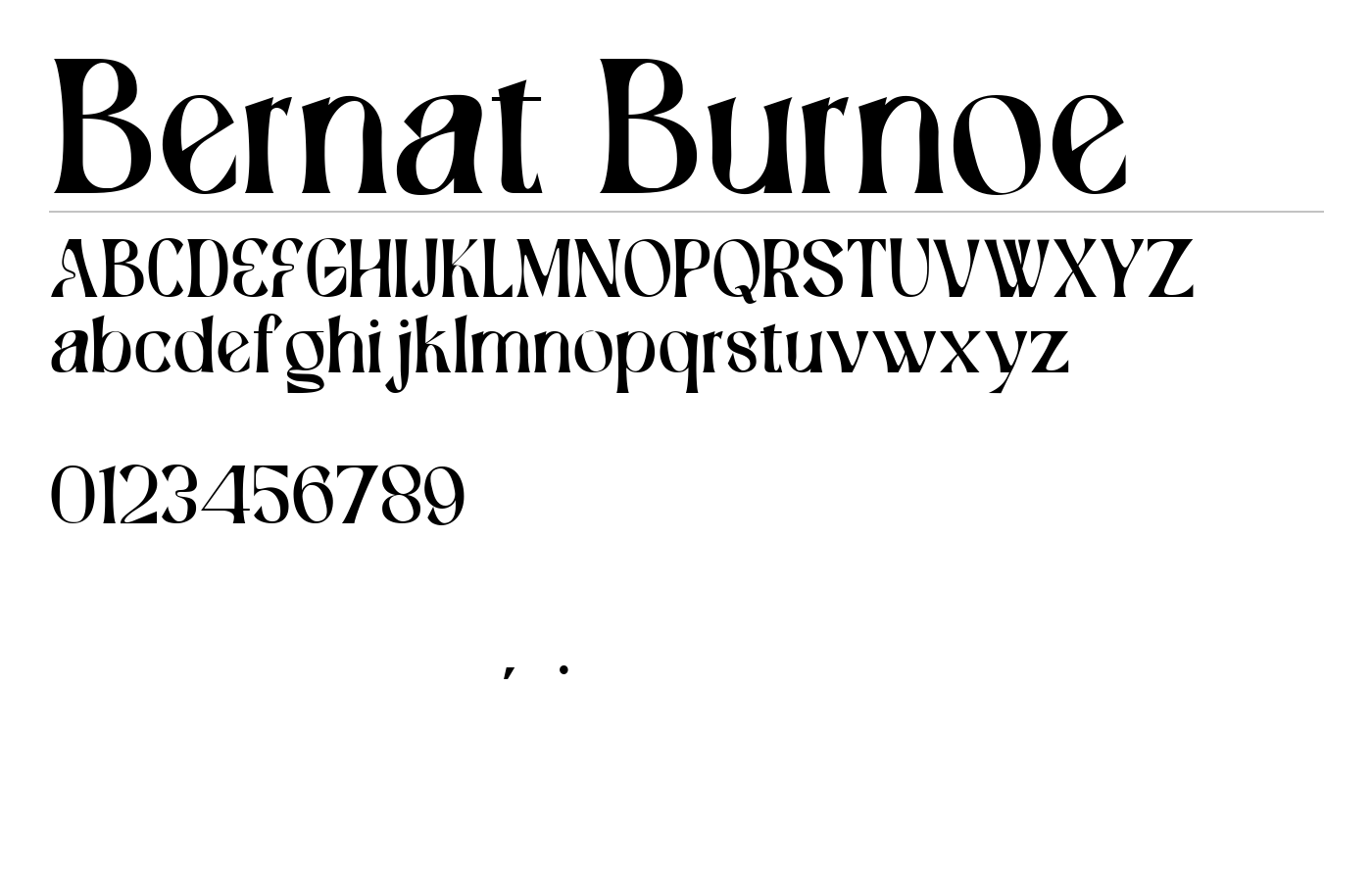
Bernat Burnoe is a distinctive serif font with a modern twist, characterized by sharp contrasts between thick and thin strokes and unique, playful letterforms. Its tall, narrow proportions and elegant curves give it a stylish, sophisticated personality, making it ideal for fashion, editorial headlines, and luxury branding that seeks to stand out with a refined yet unconventional look. This font works best in larger sizes where its artistic details can shine, adding a touch of elegance and creativity.
Bernat Burnoe Font